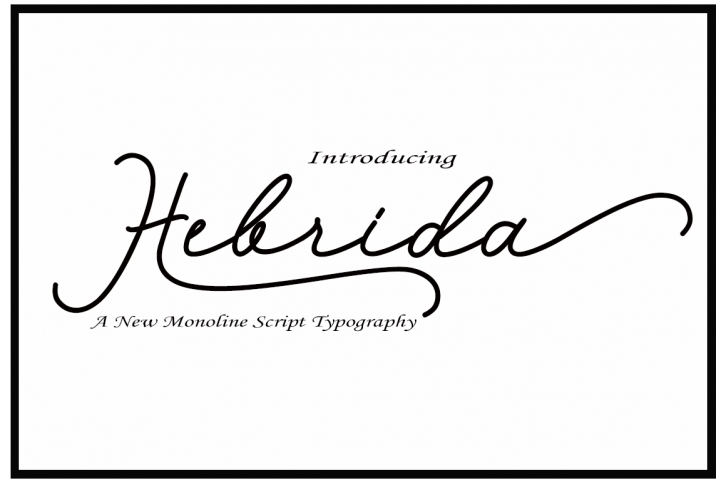
Hebrida Script is a beautiful font that was designed by TypeDesign. It's a great choice for designers and creatives who need such a font. It was released on December 18, 2017 and the file size is 21.9 MB. Hebrida Script may give a more youthful, expressive and casual look to your project. It is a very beautiful, refined, elegant, and high-quality font.